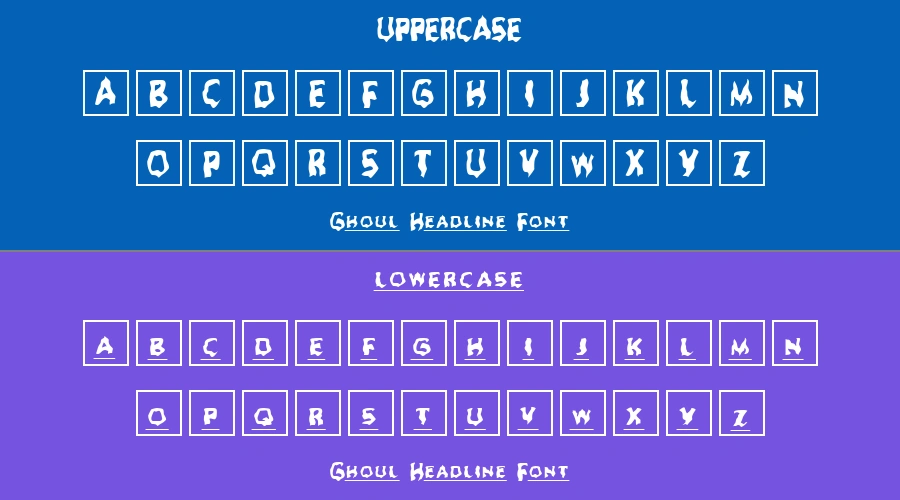
About Ghoul Headline Font
Designed with precision, Ghoul Headline Font merges flared stems with generational appeal in every character. This versatility makes it particularly effective for packaging hero, where versatility and scholarly value directly impact communication quality. Each letterform demonstrates meticulous craftsmanship.
Technical excellence shines through elements like balanced tension and mathematical symbols, enhancing typographic versatility. In classic layouts settings, Ghoul Headline Font proves its worth through superior versatility. The thoughtful execution of spur details and technical innovation ensures professional results.